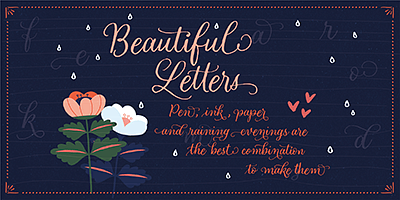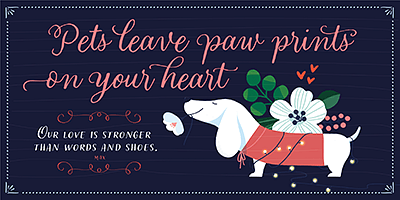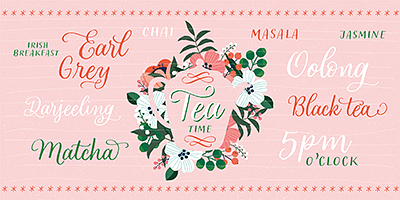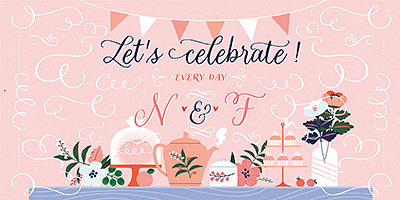
A comprehensive informal script that comes with many alternates, swashes and ligatures, along with small cap and quite a few ornaments. The fonts cover an expansive range of Latin languages, and are intended for use in stationery, menus, packaging, and general design where the main objective is to relay a sense of fun, playfulness and sensibility.